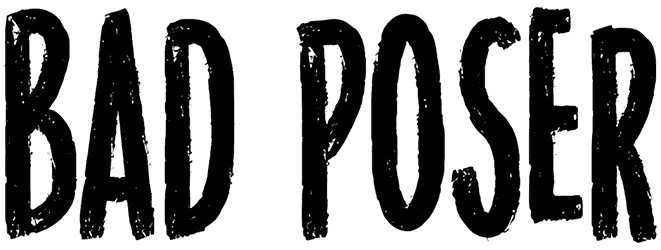
Bad Poser Font
Like the words of an action movie poster, the characters of this brush font have a cool and urban vibe. The realistic and untidy form of the letters is going to impress your followers. The Bad Poser can serve you well for many projects, and it just needs to be chosen by you.